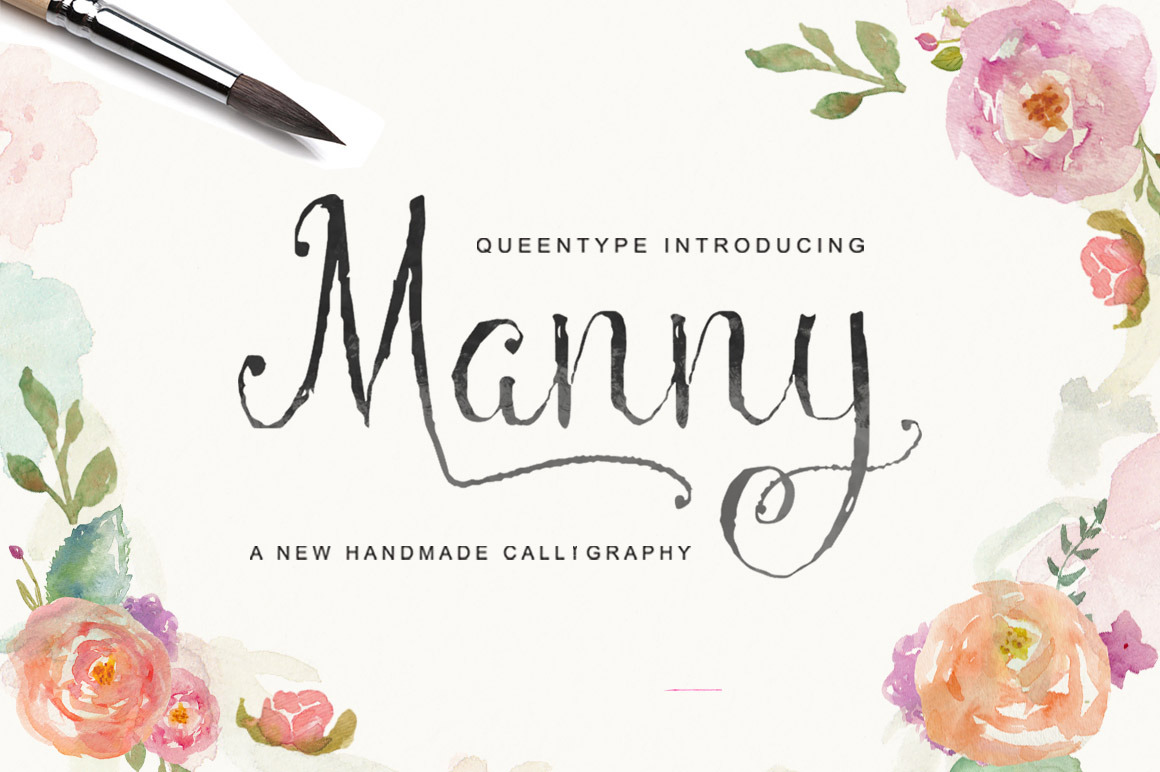
Manny Script Font
Manny Script Font is perfect for personalized branding, handwritten logos, artisan product labels, boutique signage, intimate wedding invitations, craft business materials, personal blogs, handmade goods packaging, creative portfolios, authentic greeting cards, custom calligraphy projects, and warm social media graphics.
What makes Manny Script Font exciting is its authentic handwritten charm that captures the personal touch and genuine warmth of natural penmanship through flowing letterforms. This captivating typeface embodies the intimacy and authenticity of handwritten communication, combining organic flow with careful legibility that resonates with audiences seeking genuine human connection and personal expression. The font's natural character and spontaneous variations create immediate emotional connection while maintaining the professionalism needed for commercial applications. Its personal touch makes it perfect for brands that want to communicate authenticity, creativity, and the irreplaceable value of human craftsmanship in their visual identity.
The Manny Script Font family includes regular and bold weights, featuring handwritten alternates, natural ligatures, and authentic variations. The character set incorporates script-style numerals, expressive punctuation marks, and personal flourishes that enhance the font's handwritten character and provide designers with comprehensive script typography solutions for intimate brand communications.